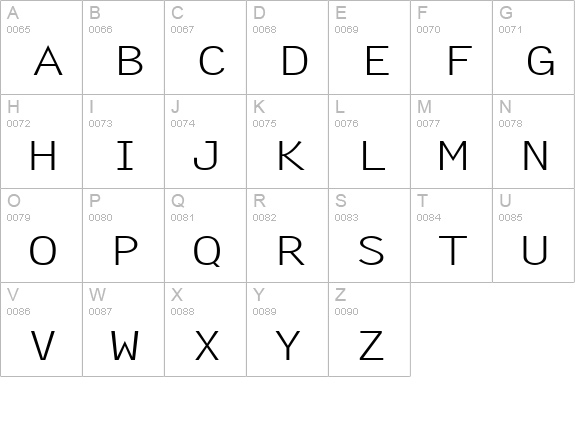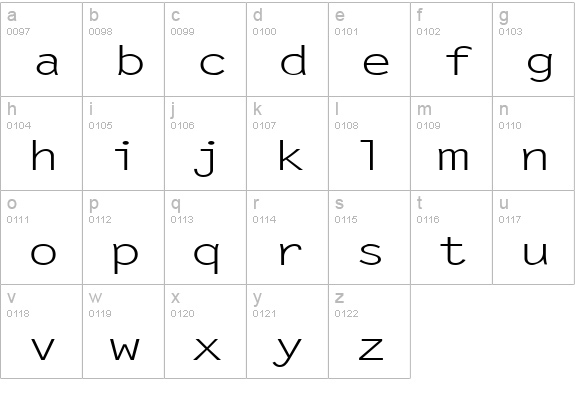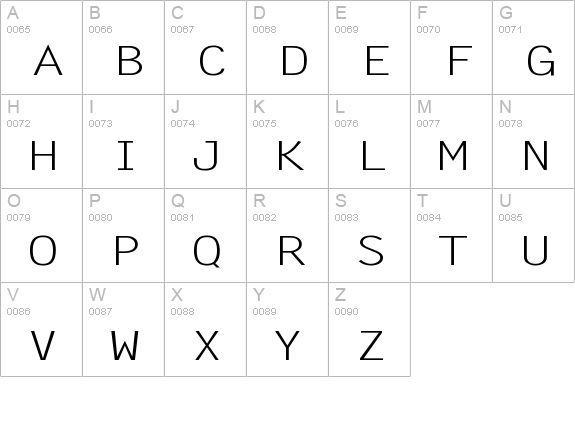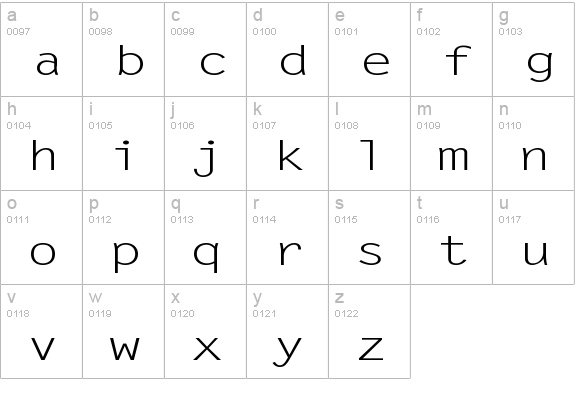
Lechter Extended Normal is the standard, neutral, extended-width variant in the Lechter typeface family \xE2\x80\x94 well suited to general body text, paragraphs, and standard typographic work.
Introducing Lechter Extended Normal font, a stunning typeface that embodies elegance and sophistication. With its sleek and stylish design, this font is perfect for adding a touch of class to any project. Lechter Extended Normal font boasts clean lines and a balanced letterform, making it highly legible and versatile. Whether you're working on a professional presentation, a creative advertisement, or even a personal project, this font will surely elevate your designs to new heights. What sets Lechter Extended Normal font apart is not only its exceptional aesthetics but also its accessibility. It is freely available to download at FontsMarket.com, allowing designers and enthusiasts alike to fully utilize its beauty without any restrictions. This font brings a sense of professionalism and refinement to any project, making it ideal for corporate branding, editorial layouts, and even high-end fashion designs. Its extended characters and precise spacing make it perfect for headlines, titles, and logo designs that require a bold statement. Lechter Extended Normal font is designed with meticulous attention to detail, ensuring that each letter exudes elegance and sophistication. Its versatility extends to various design mediums, including print, digital, and web applications. With its unique personality, this font is guaranteed to make a lasting impression on your audience. Whether you're a seasoned designer or a budding creative, Lechter Extended Normal font is a must-have in your font library. Its timeless appeal and effortless grace make it a valuable asset for any project. So why wait? Download Lechter Extended Normal font for free at FontsMarket.com and unlock a world of endless design possibilities.